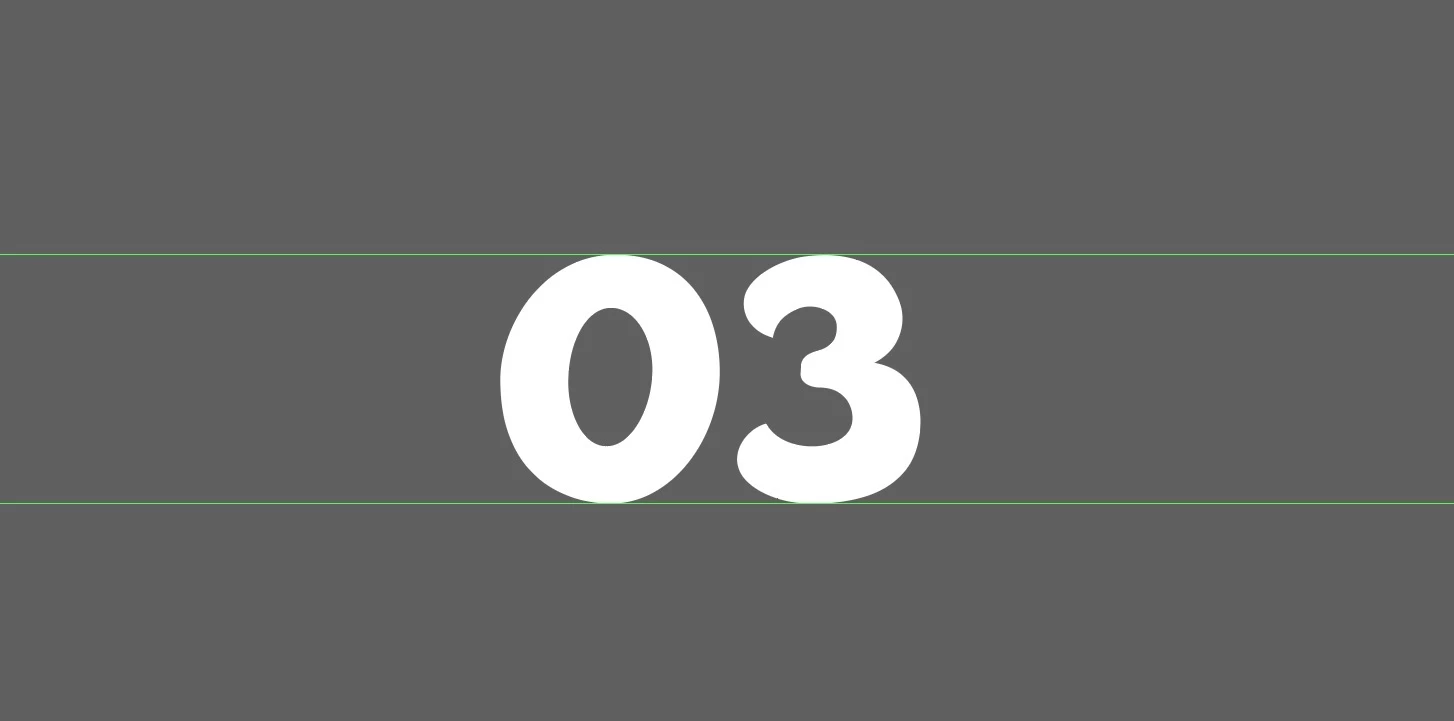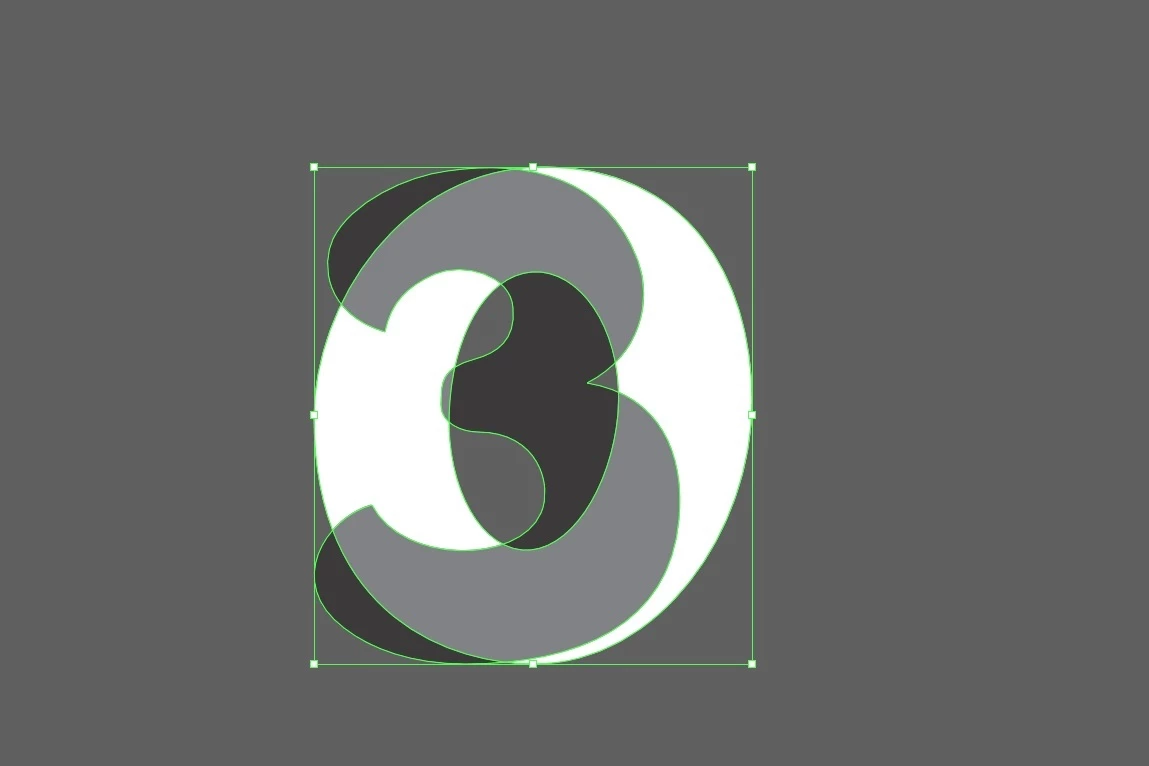
Need some help with cyrillic letters. Do you think small caps "z" is balanced towards "o". The letters are part of decorative font
What I should change?